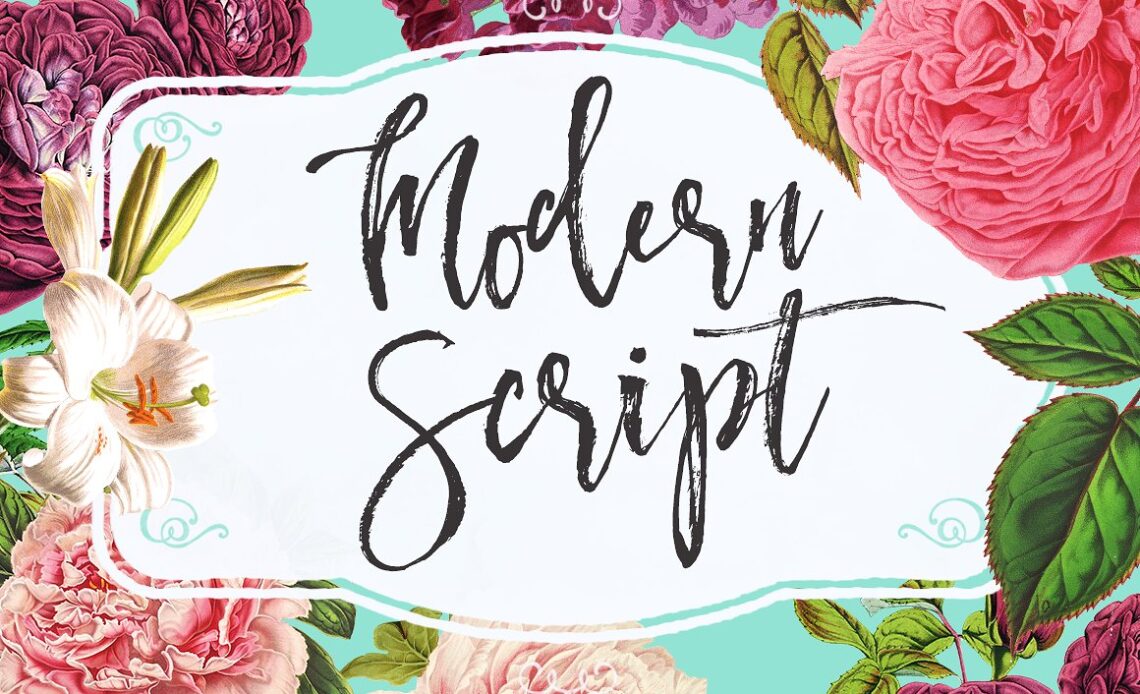
Feast your eyes on Modern Script, a graceful script font family conjured by the brilliant minds at Blessed Print. This font will instantly infuse your designs with an aura of elegance and timeless charm. It is meticulously designed, with flowy curves and delicate letterforms that exude a handwritten feel. We understand that sometimes, you need a font that's both elegant and versatile, a subtley confident font that effortlessly adapts to any design project.
Enter Modern Script, a unique blend of classicism and modernity, perfect for designers, bloggers, independent crafters, and branding specialists. Its beauty enhances packaging, branding projects, invitations, logos, and social media content. Moreover, it brings a touch of sophistication to greeting cards, posters, and even your favorite coffee mug designs.
With Modern Script you'll create designs that enchant and captivate, designs with a touch of understated luxury that speak volumes without saying a word. It unravels a tale of grace and refinement, with subtle variations in weight and thickness that add depth and dimension to your creations. It's a font that whispers class, a font that exudes professionalism and personal warmth.
Modern Script is more than just a font; it's an investment in your design aesthetic, an extension of your creativity. Embrace its elegance, relish its fluidity. Download Modern Script today and let your designs blossom into masterpieces of stylish expression. Go beyond the ordinary, embrace the extraordinary, and discover the power of Modern Script.